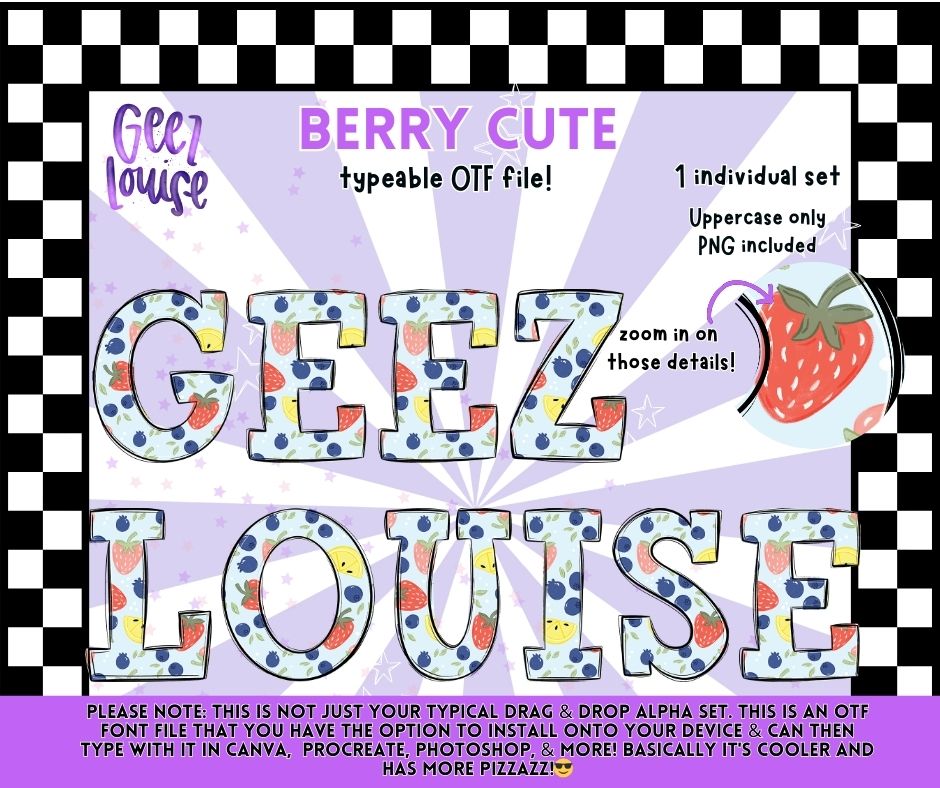
Berry Cute OTF Font | Uppercase Typeface + PNG | Strawberry Pattern Alphabet
Say hello to Berry Cute — a playful, fruity alphabet that brings instant charm to your designs 🍓
The soft strawberry pattern and bold lettering make this font perfect for shirts, stickers, kids designs, spring projects, and anything that needs a little extra sweetness.